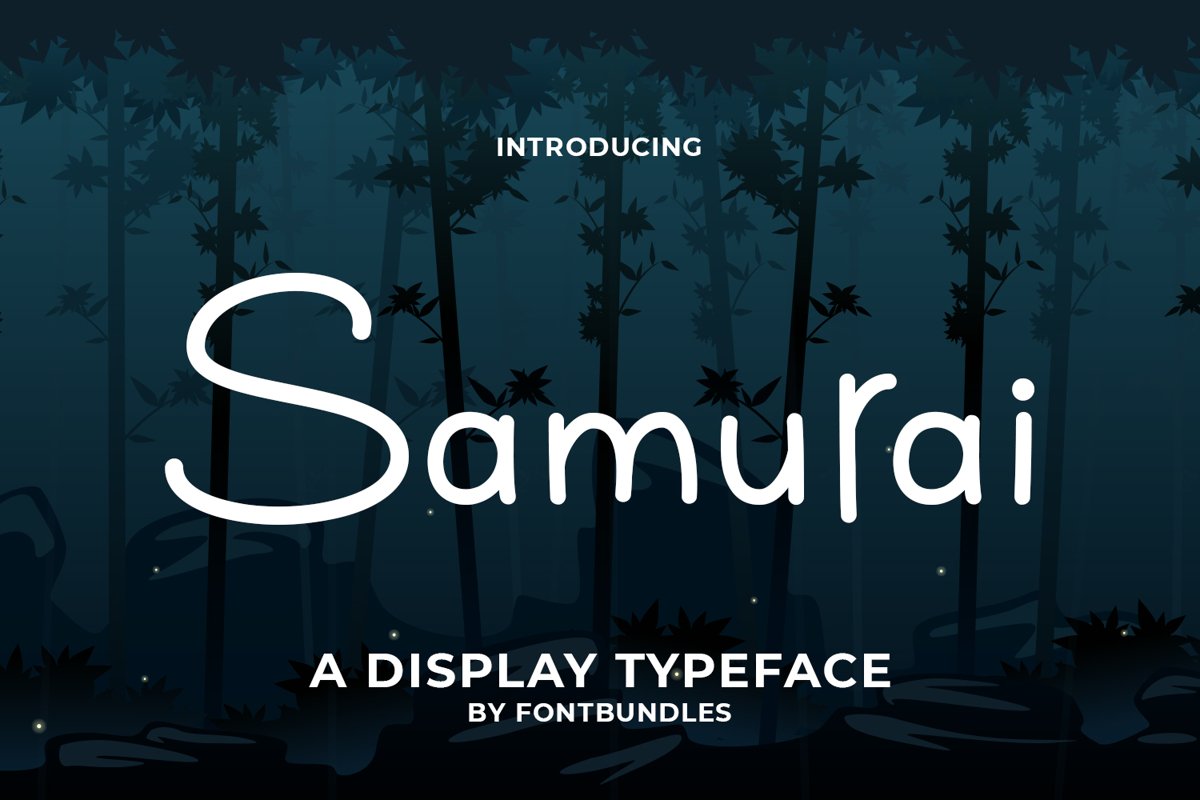
Samurai
Samurai is a display typeface. Perfect for display, quotes, name card, business card, logo, logotype, branding, merchandise, packaging, header, tittle, craft needs, emblem, badges, and many more.